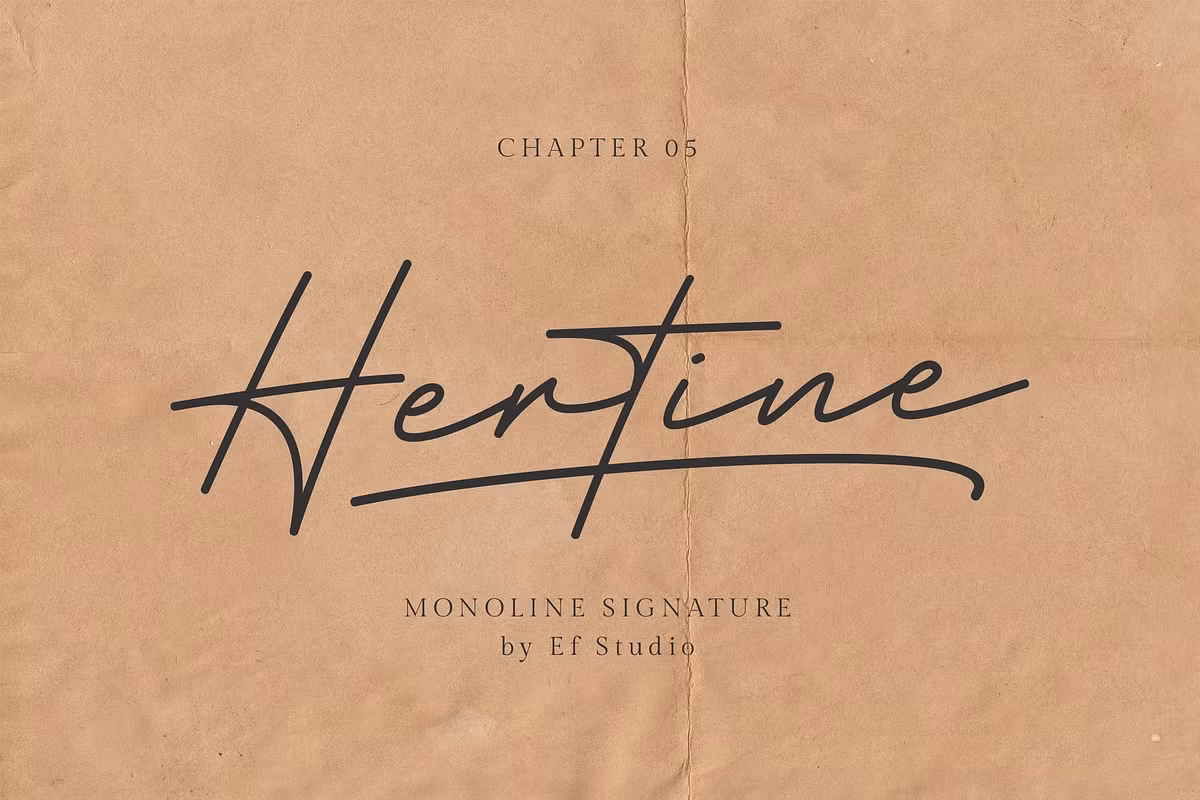
Add a touch of sophistication to your designs with Hertine Monoline Signature Font Free Download — a refined handwritten font that’s as stylish as it is simple. With its sleek monoline structure and elegant curves, Hertine is perfect for logo design, branding, wedding invitations, personal stationery, and professional signatures.
The beauty of Hertine lies in its simplicity. It’s clean, modern, and highly versatile, making it the ideal choice for both creative and professional projects. The font includes uppercase and lowercase letters, punctuation, numerals, and multilingual support — giving you the flexibility you need for any design.